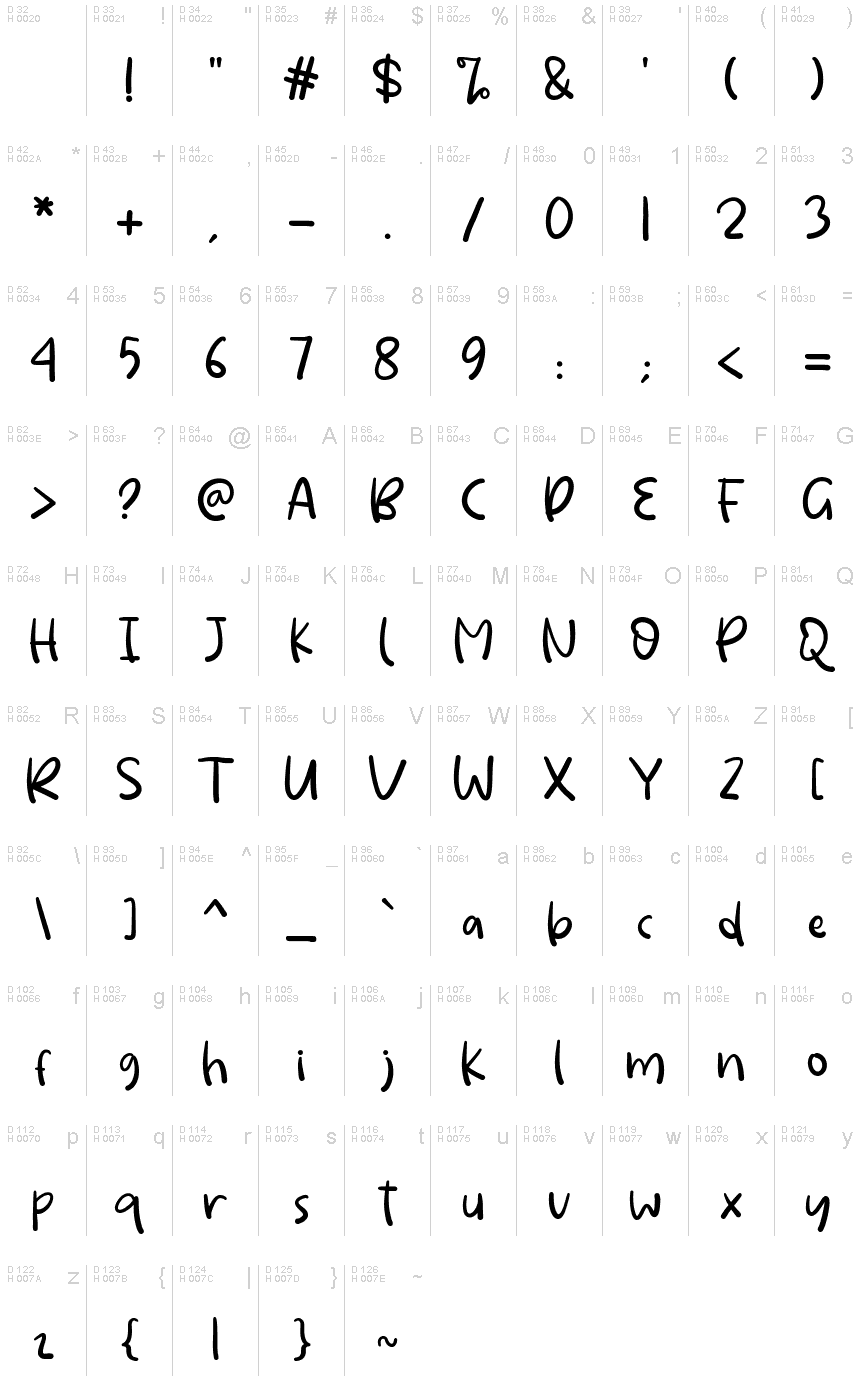
Fantasy kids
Fantasy Kids by Erlina Graphic is the perfect playful script font for any project that seeks to capture the whimsy and wonder of childhood. Its semi-light weight adds a touch of delicacy to its flowing, organic lines, making it ideal for designs that require a softer touch. From children's book illustrations and posters to greeting cards and branding, Fantasy Kids brings an imaginative charm that will delight audiences of all ages. Its casual yet refined style makes it versatile enough for both digital and print media, making it an excellent choice for any creative endeavor seeking to infuse some youthful magic into its design.